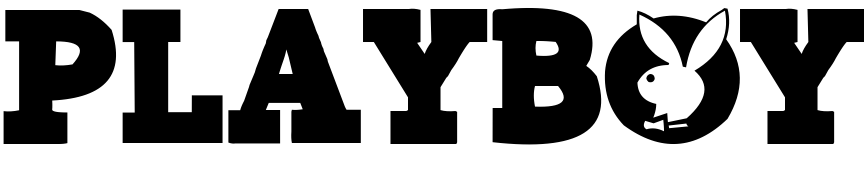
Playboy Font
EntertainmentPlayboy is a men's lifestyle and entertainment magazine that was first published in 1953. It is known for its centerfolds of nude or partially nude models, as well as its articles, interviews, and fiction.
The Playboy logo font is custom made but has been recreated as Playtoy font by Sharkshock Fonts. The font is available in all caps and is free for personal use.